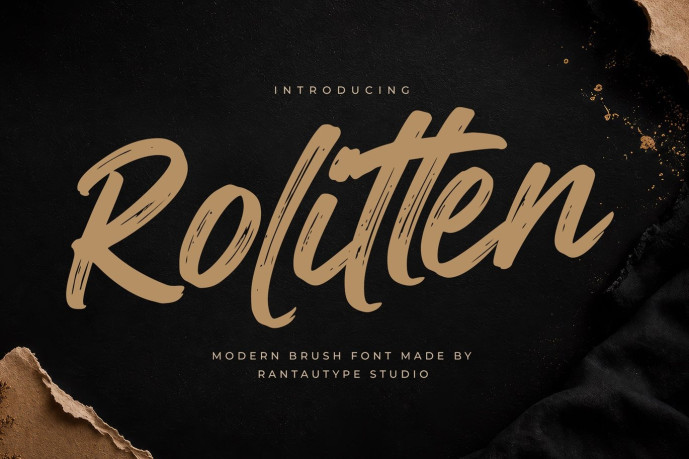
Rolitten Modern Brush Font
Rolitten is modern brush font captures the spirit of authentic hand-painted lettering with a bold, expressive personality that instantly commands attention. Every character is crafted with dynamic brush strokes, natural ink textures, and subtle distressed details, giving the typeface a genuine handcrafted appearance
Rolitten is a perfectly choice for any creative endeavor, creating, modern, lifestyle design such as logotype, title, cover, branding, invitations, wedding designs, display and magazine, social media posts, advertisements, printed quotes, product packaging, corporate brand, product designs, labels, photography, watermarks, special events and any other project with modern touch.
Alternate and Ligature